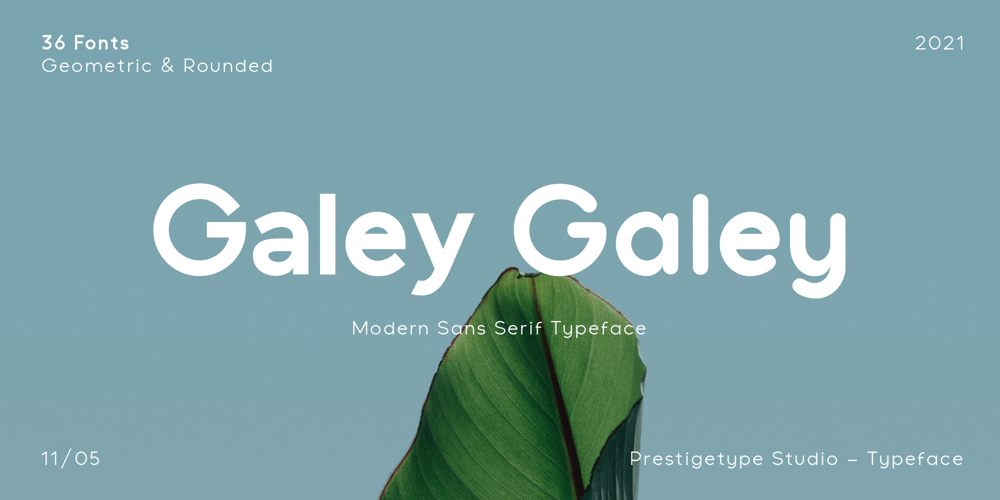
Galey
Galey font
Galey Font Family was designed by Mohamad Ridwan and published by Prestigetype Studio. Galey contains 38 styles and family package options. Galey is a modern and clean sans serif with a geometric and rounded style. Each style comes in 18 weights with italics + variable fonts, from thin to black, includes 592 glyphs in each weight. Each style has its unique characters include OpenType features and extended language support (+Cyrillic) to suit a different purpose. Designed with a modern minimalist in mind, Perfectly use for branding, display, logo, text, headline, web design, and many editorial design purposes.We highly recommend using a program that supports OpenType features and Glyphs panels like many Adobe apps and Corel Draw so you can see and access all Glyph variations.We hope you enjoy our font – please do let us know by emailing us at info@prestigetype.com or prestigetypestudio@gmail.com if you need something!